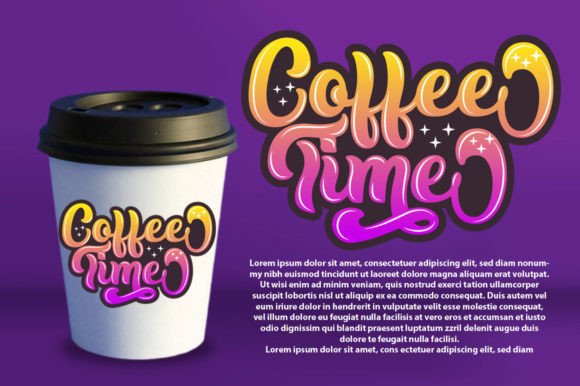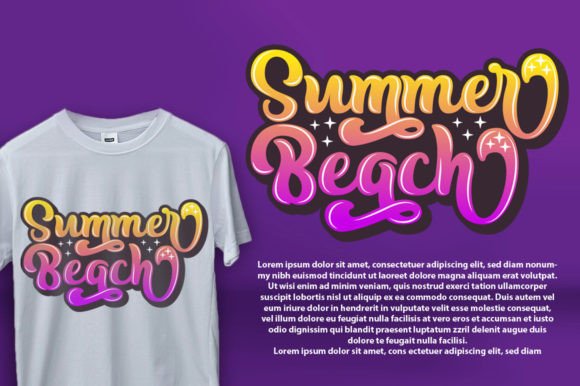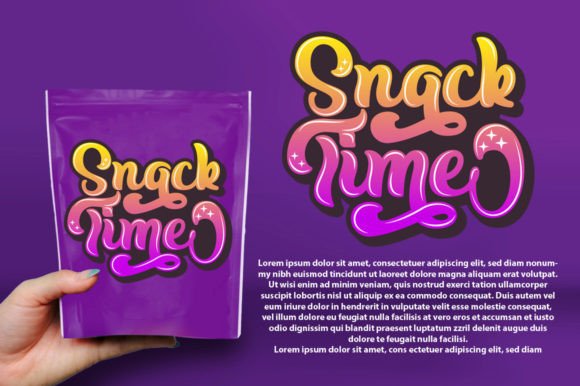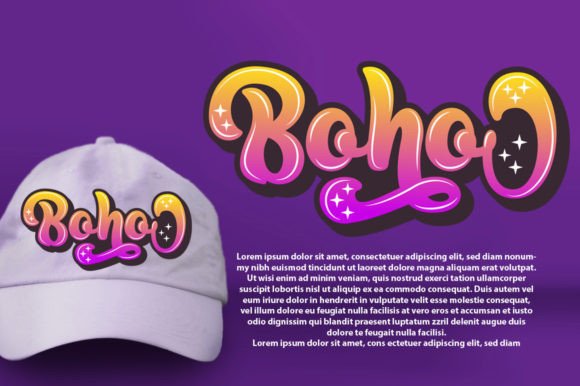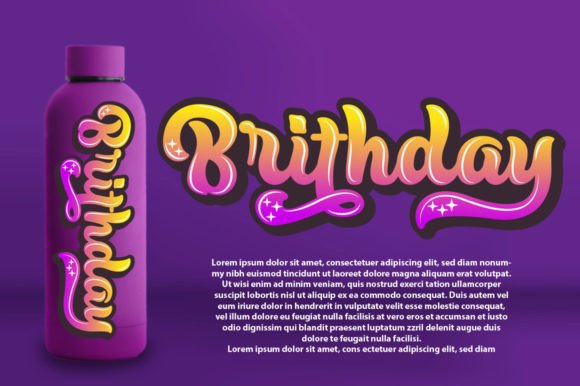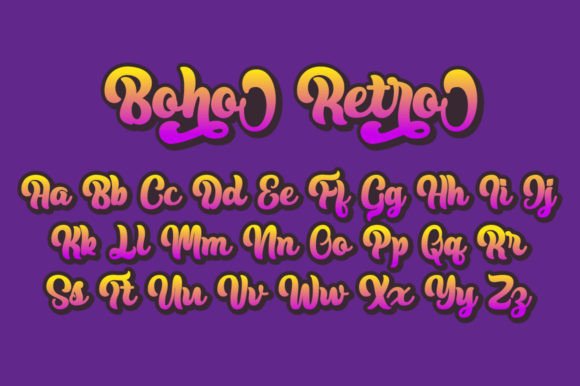
The Perfect Blend of Vintage and Modern: Unleashing the Boho Retro Font
Have you ever been rummaging through your grandmother’s old trunk, unearthing forgotten memories and dusty treasures? That’s exactly the feeling you’ll get when you use the Boho Retro Font in your next design project. This font is a time capsule that seamlessly blends vintage and modern styles, transporting your audience to a bygone era.
The Boho Retro Font is more than just a nostalgic throwback – it’s a powerful tool for designers looking to add a touch of retro cool to their projects. With its fluid, brush-like script and bold display font, this font is perfect for creating eye-catching designs that stand out from the crowd. Whether you’re working on a branding project, creating a social media campaign, or designing a website, the Boho Retro Font is sure to add a unique touch to your work.
Key Features of Boho Retro Font
- Unique Characteristics: Boho Retro Font features a unique blend of bohemian and retro elements, with intricate details and ornate flourishes that evoke a sense of nostalgia and free-spiritedness.
- Style Options: The font includes multiple style options, including regular, bold, italic, and bold italic, allowing designers to add variety and emphasis to their designs.
Boho Retro Font Review
I recently had the chance to work with the Boho Retro Font, and I must say, it’s a unique and interesting choice for designers looking for a laid-back, vintage vibe. ✨ One thing that stands out is its flexibility – it works well in both digital and print formats, making it a versatile option for various design projects.
Another aspect I appreciate is the font’s versatility in terms of pairing. ✨ It can easily be combined with other fonts to create a cohesive and stylish visual identity. The Boho Retro Font also comes in various weights and styles, giving designers plenty of options to experiment with.
While the Boho Retro Font has its strengths, there are some limitations to consider:
- ⚠️ Limited support for smaller font sizes, which can make it difficult to read in certain contexts.
- ⚠️ Not ideal for body text, as it can be a bit too ornate and overwhelming.
- ⚠️ Some characters may not display correctly in certain operating systems or devices.
In conclusion, the Boho Retro Font is a great choice for designers who want to add a touch of bohemian flair to their projects. While it may not be suitable for all design applications, its unique character and versatility make it a great option for those looking to create a distinctive visual identity.
Tips for Getting the Most Out of Boho Retro Font
Use Boho Retro Font to add a touch of bohemian flair to your designs. Experiment with different font sizes, colors, and styles to create a unique look. Combine the font with vintage-inspired graphics, textures, and watercolor effects to add depth and interest to your designs.
Use Boho Retro Font for:
- Travel and adventure-themed designs
- Home decor and furniture design